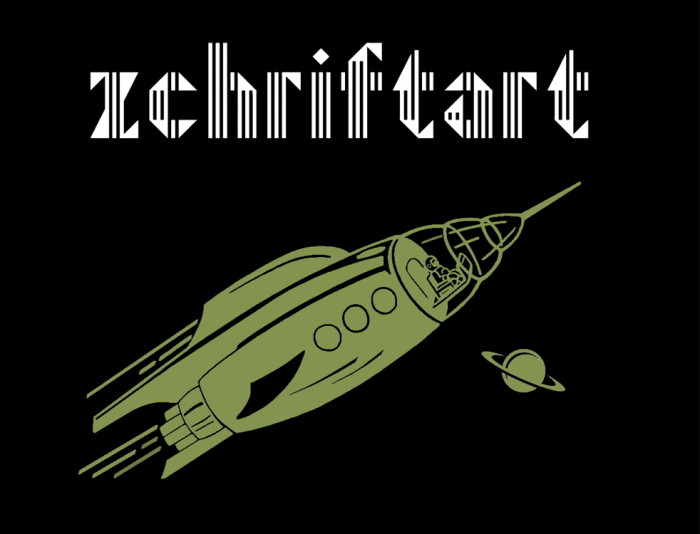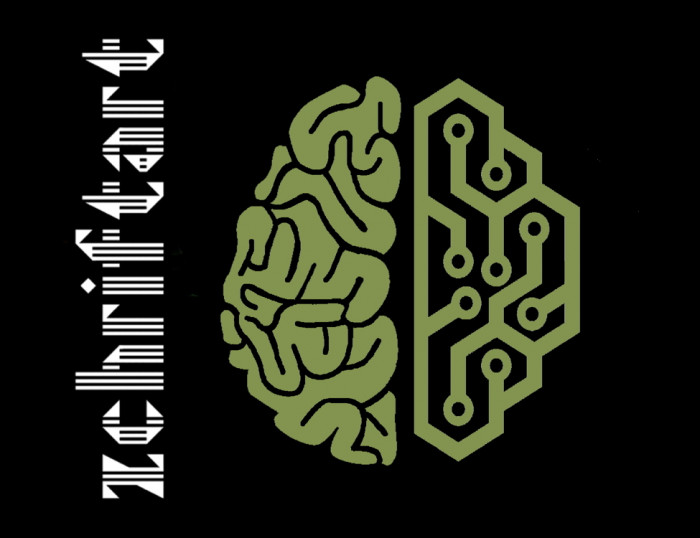
The routine is the first jailer. Look forward, open your mind. Ask about everything. Our Future begins in... 3... 2... 1... NOW!
Good work and cool samples! The combination of lines and solid colour areas creates a nice contrast; abstract forms that stay legible.
The future has improved pinstripes, I see.
Congratulations! FontStruct Staff have deemed your FontStruction worthy of special mention. “zchriftart eYe/FS” is now a Top Pick.
I have to say this as well, I always feel awkward when one of my fs is awarded a Top Pick. Mostly because I never think it really deserves it. But I am always honored to receive it. Every single time. However, dear elmoyenique, your Top Picks are truly deserved. Every one.
It seemed to me that I sent a review about this font, but I will write it again. This font gives me an art deco feel, so this font can be called retro-futuristic (as your pictures also prove). This effect with transparency and seepage can play very nicely even now on a colored or multi-colored background, and geometry is still in fashion. And even the light effect of 3D origami, which you might not have thought of. Really amazing font.